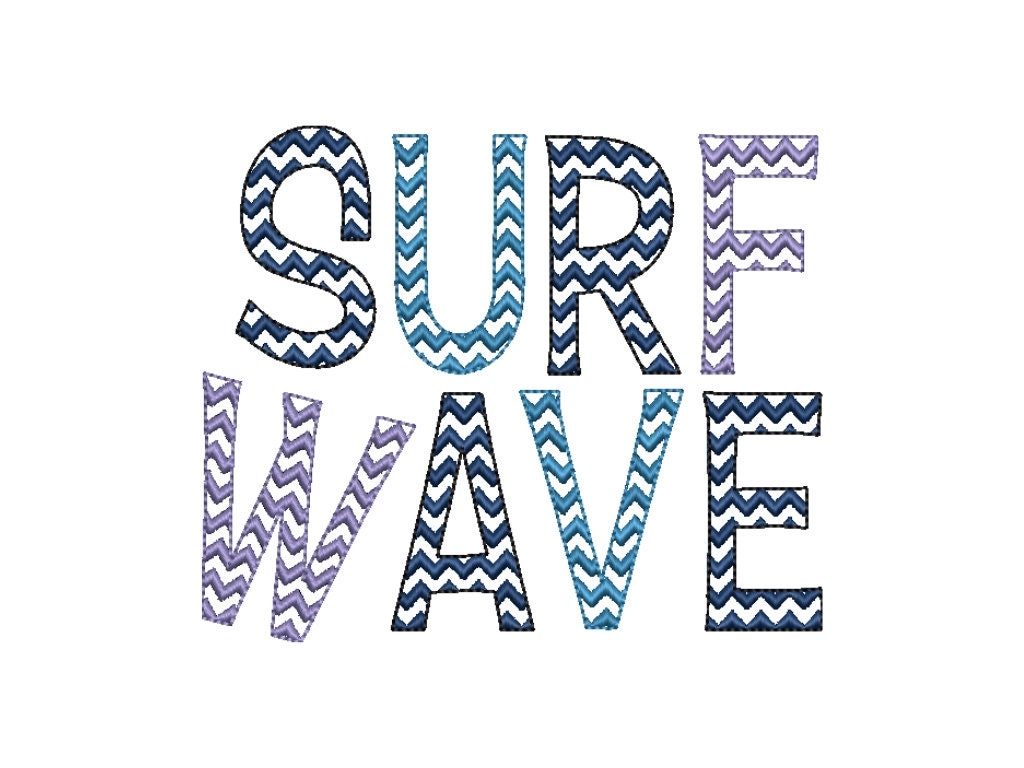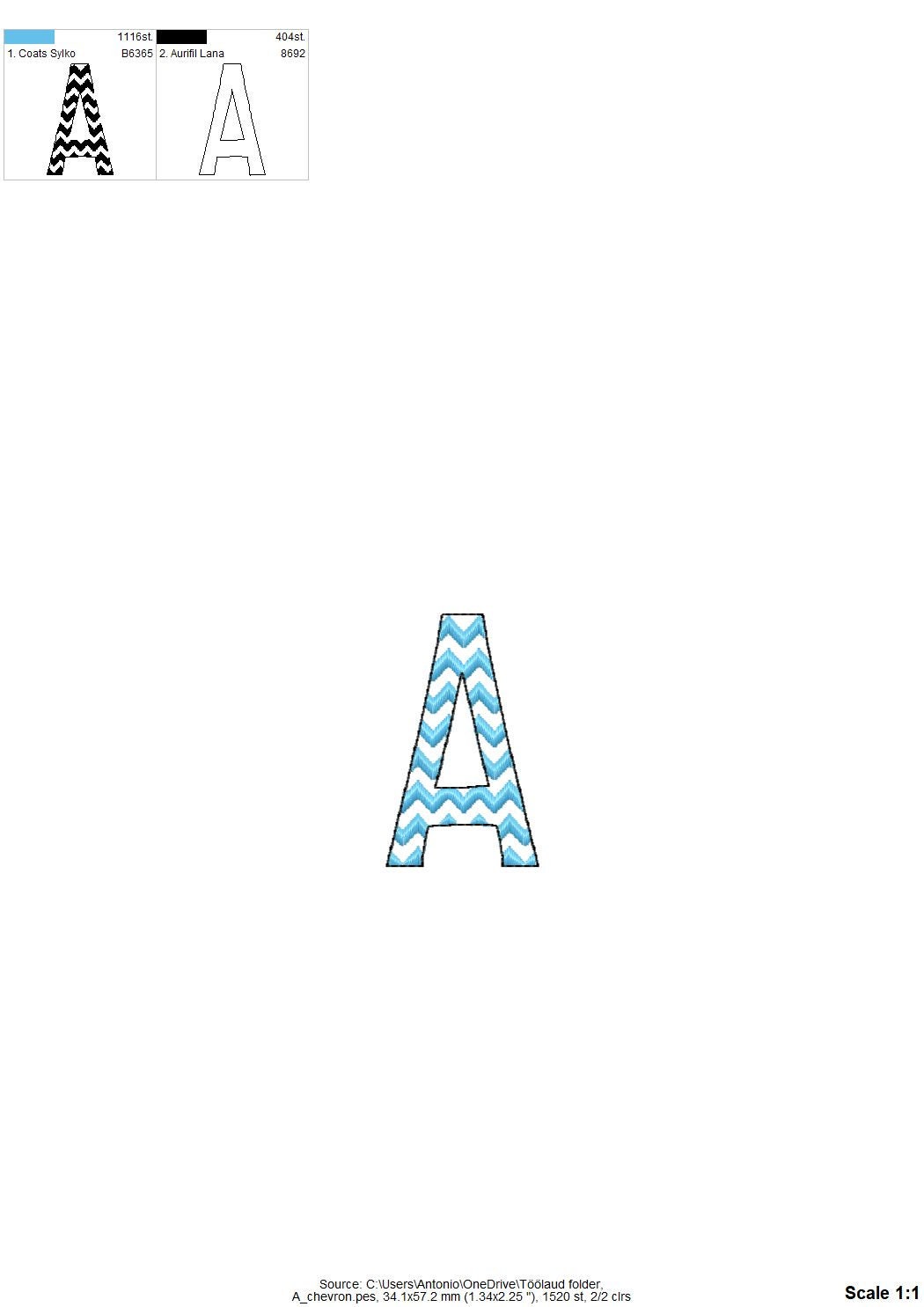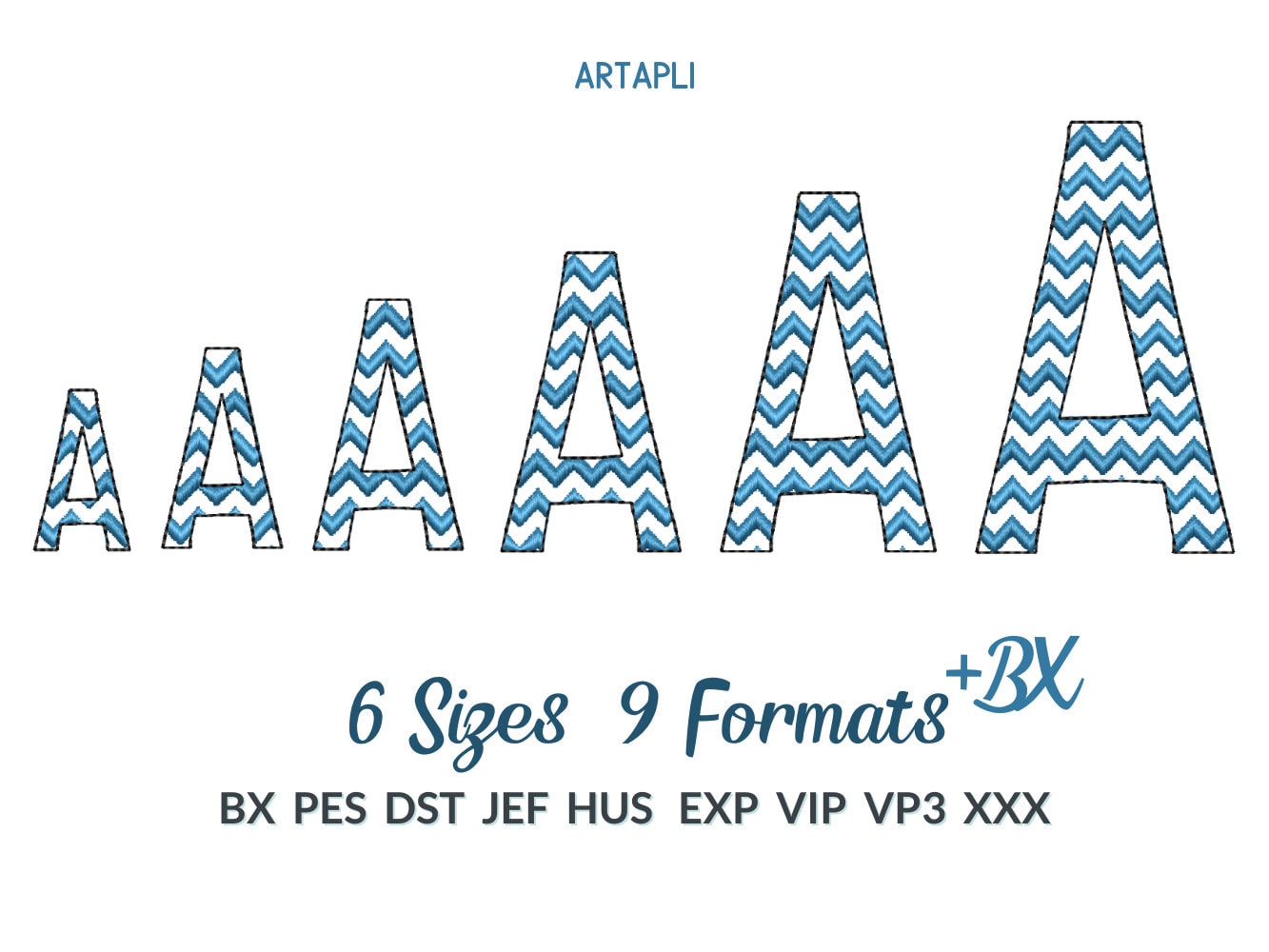
Chevron Font Ricrac Chevron alphabet versatile letters and numbers monogram machine embroidery designs sizes 1.2 up to 3.2 inches BX included
Whole alphabet uppercase and lowercase letters Aa-Zz, numbers 0-9, and punctuation & . , -
Chevron lines are part of embroidery. This is not an applique. The background fabric looks through. Stunning effect!